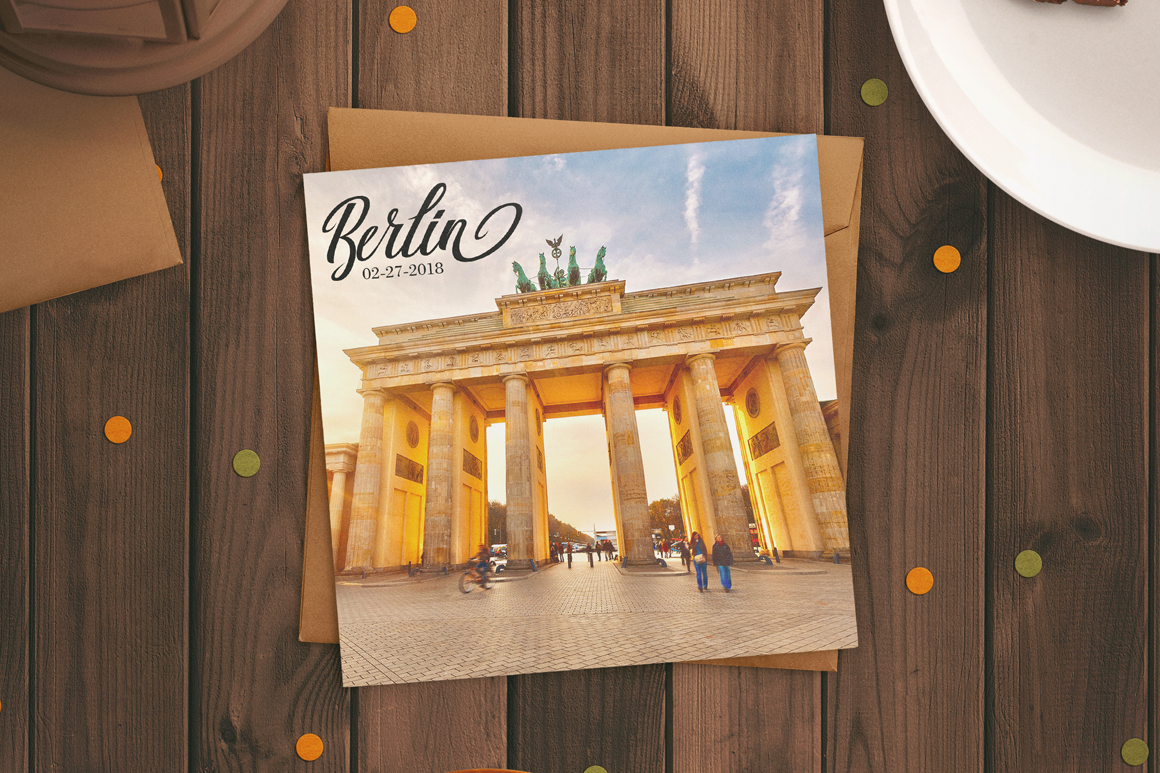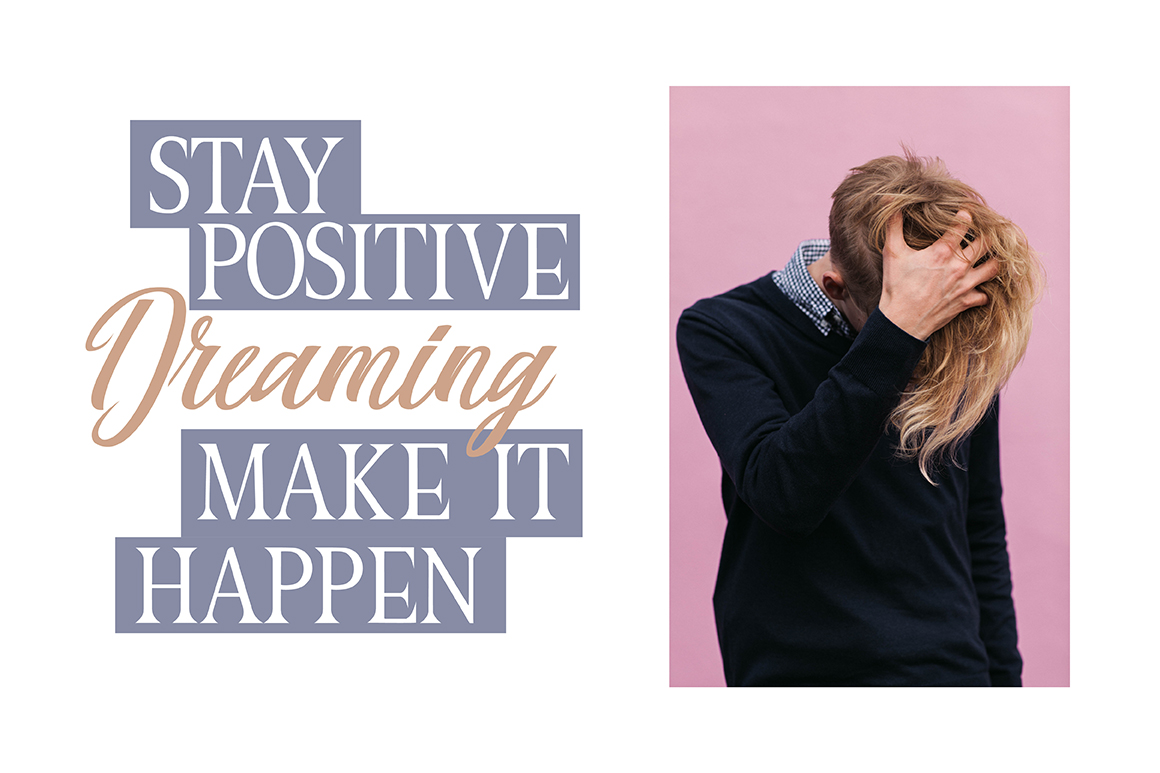
Berlin Script Font
db-ku.com - Script & Handwritten -- Berlin Script is a stunning handwritten font and comes with a matching serif font, called Great.